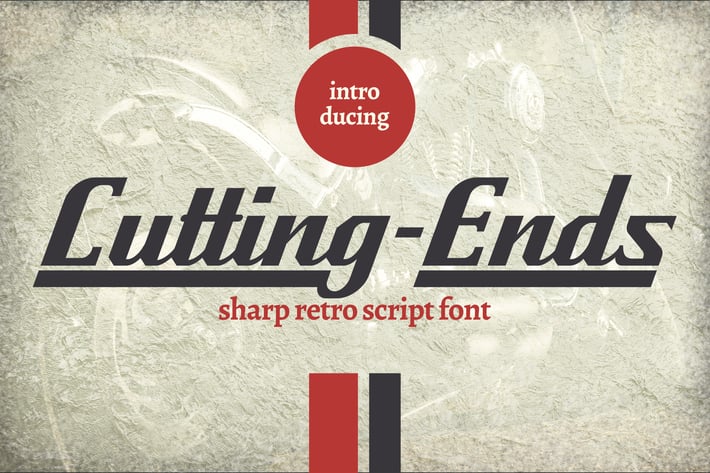
Cutting-Ends | Retro Script Font
Cutting-Ends | Retro Script Font with a calligraphy style, So beautiful on invitation like greeting cards, branding materials, business cards, quotes, posters, and more!